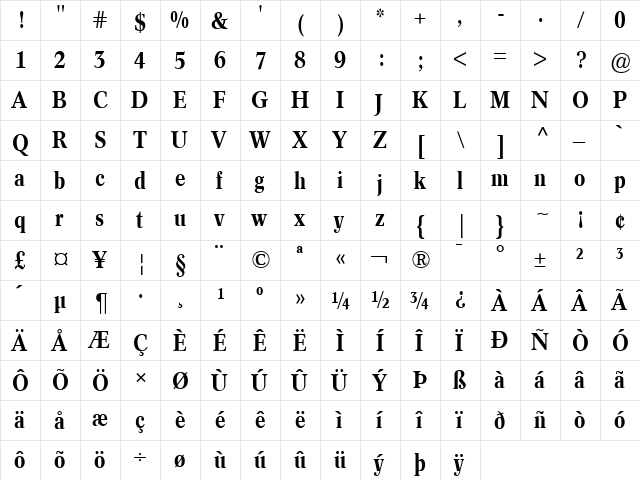
Concorde BE Bold
| Foundry | Adobe Systems Incorporated |
Design Context for Concorde BE Typeface
Concorde BE offers clean, dependable letterforms without strong stylistic allegiance, making it a practical choice for designers who need flexibility. Its bold stroke weight gives it real presence on the page.
Pro Tip: Use Concorde BE in both headline and body roles to test its range before committing to a single application.